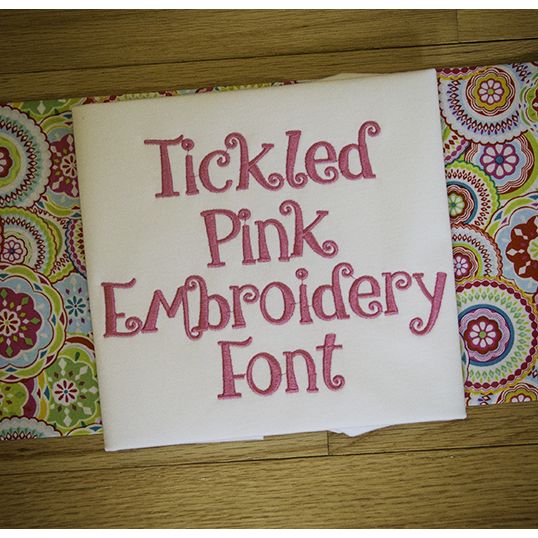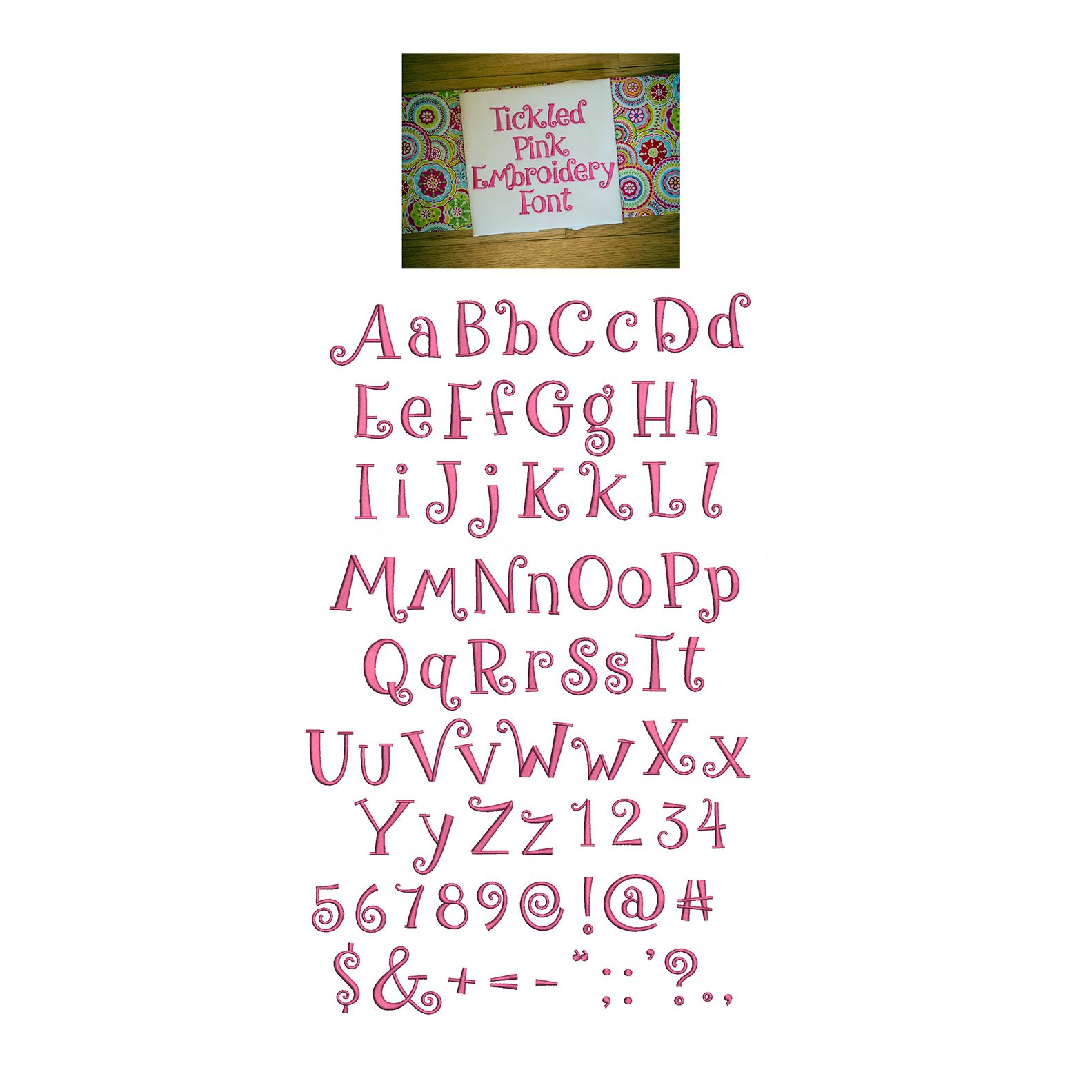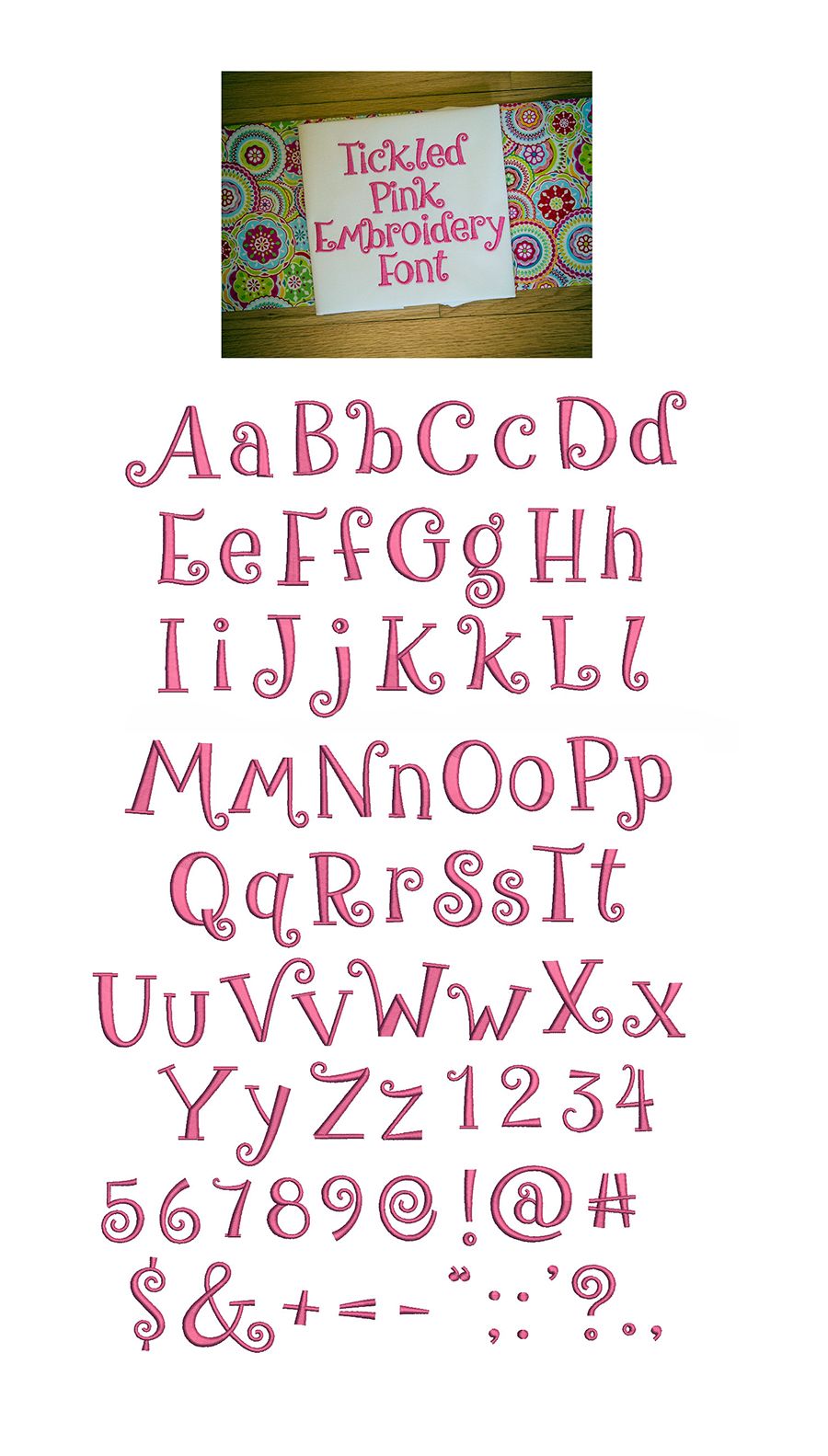
Tickled Pink Satin Stitch Embroidery Font
Sweet, curly and whimsical! You will love this one!  All of our font alphabets are 100% manually digitized to bring you maximum stitch quality.
Tickled Pink Embroidery Font Machine Embroidery Designs by JuJu